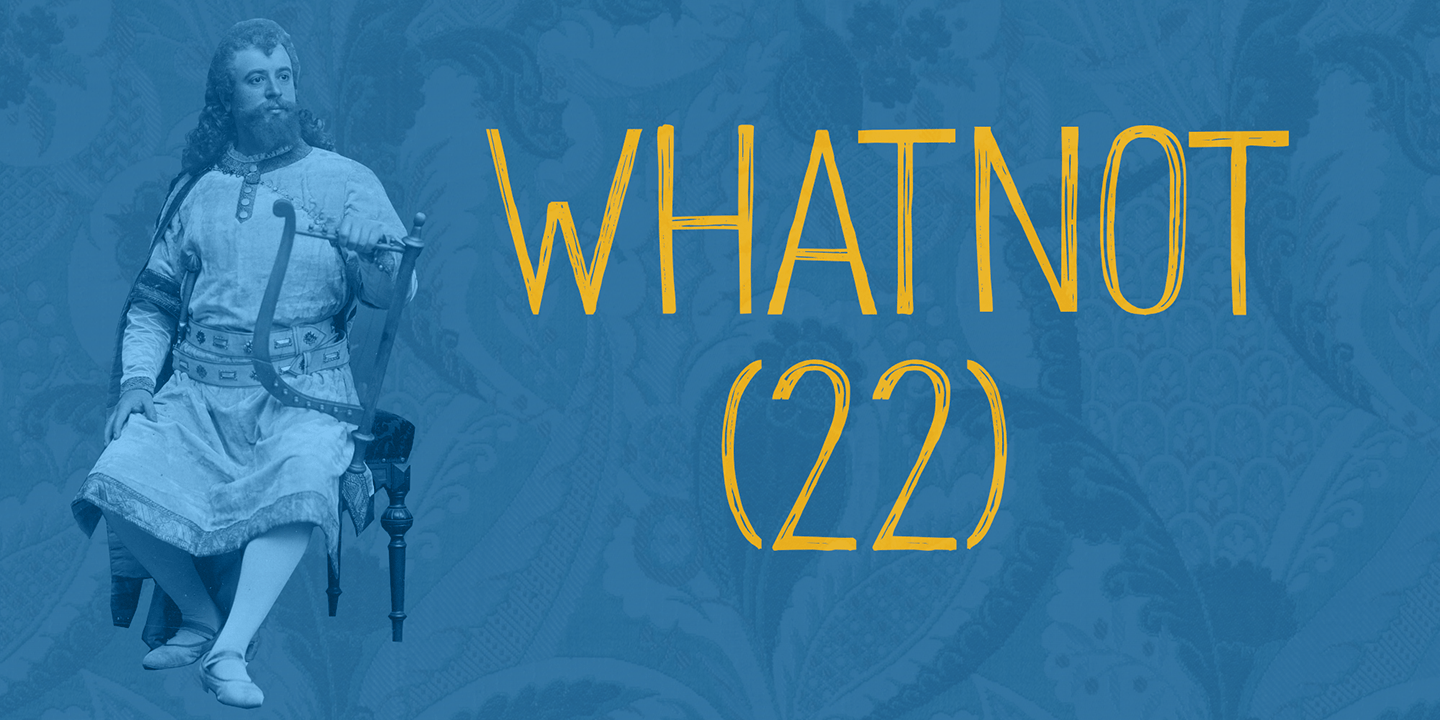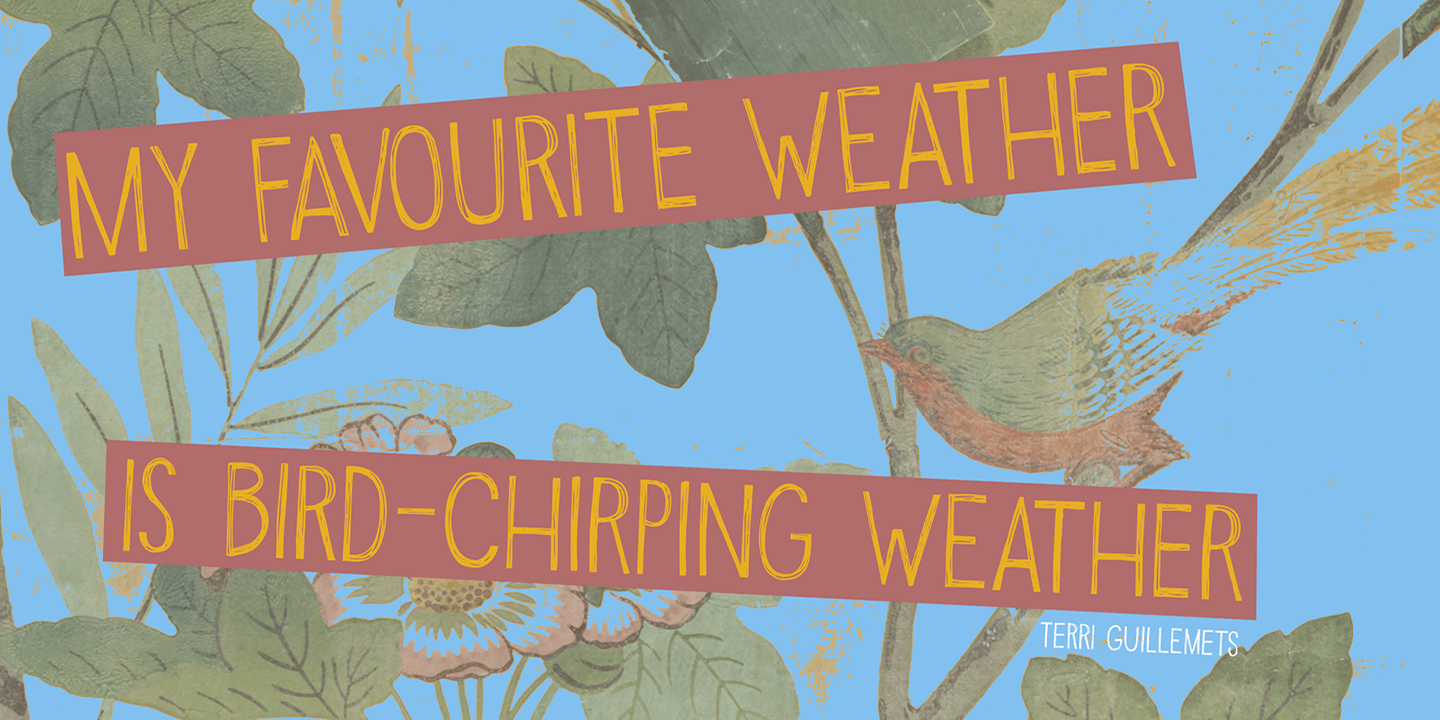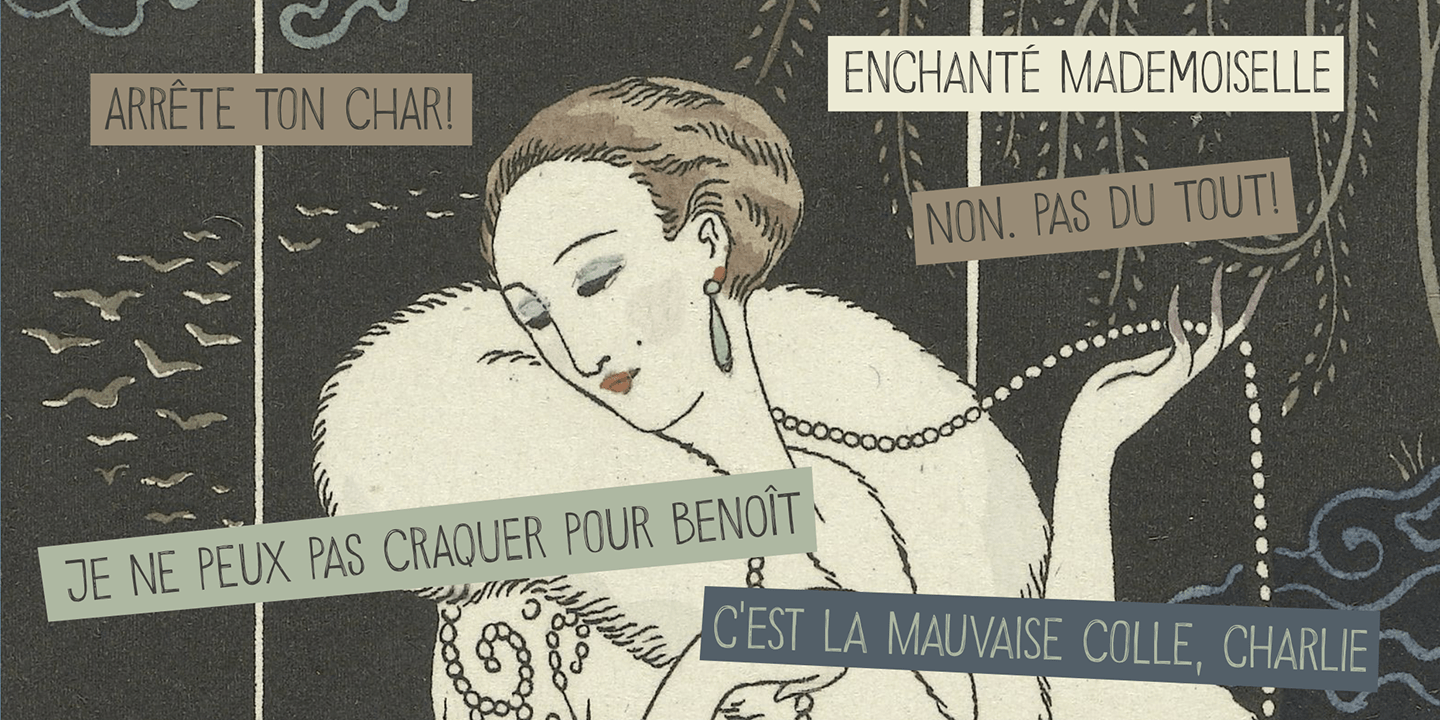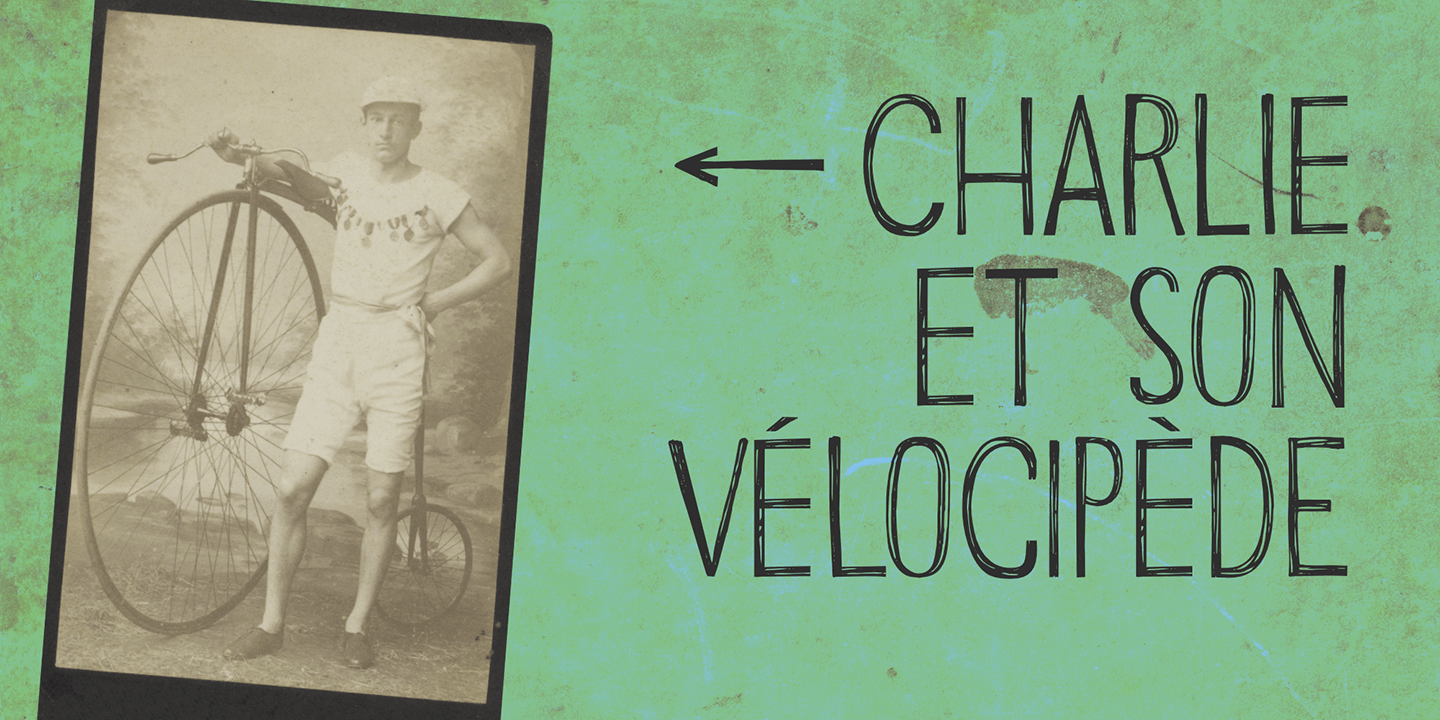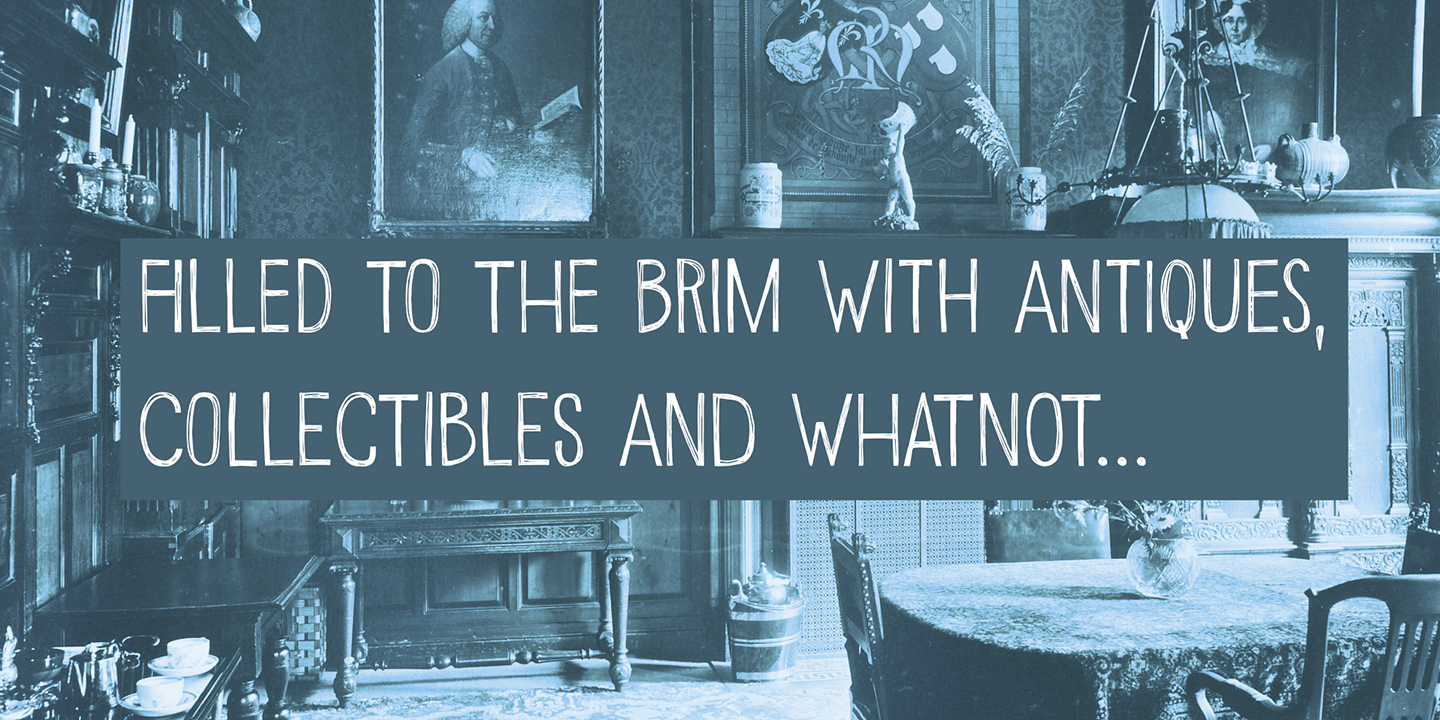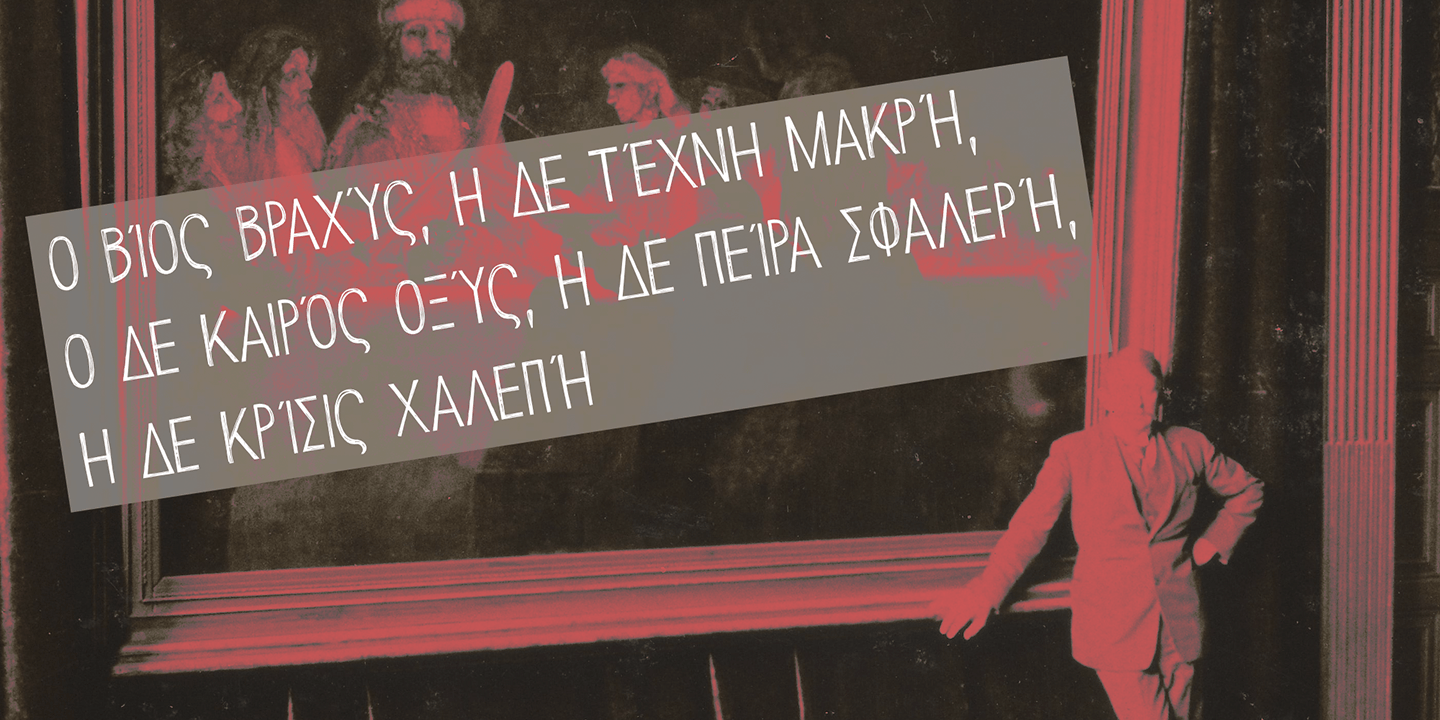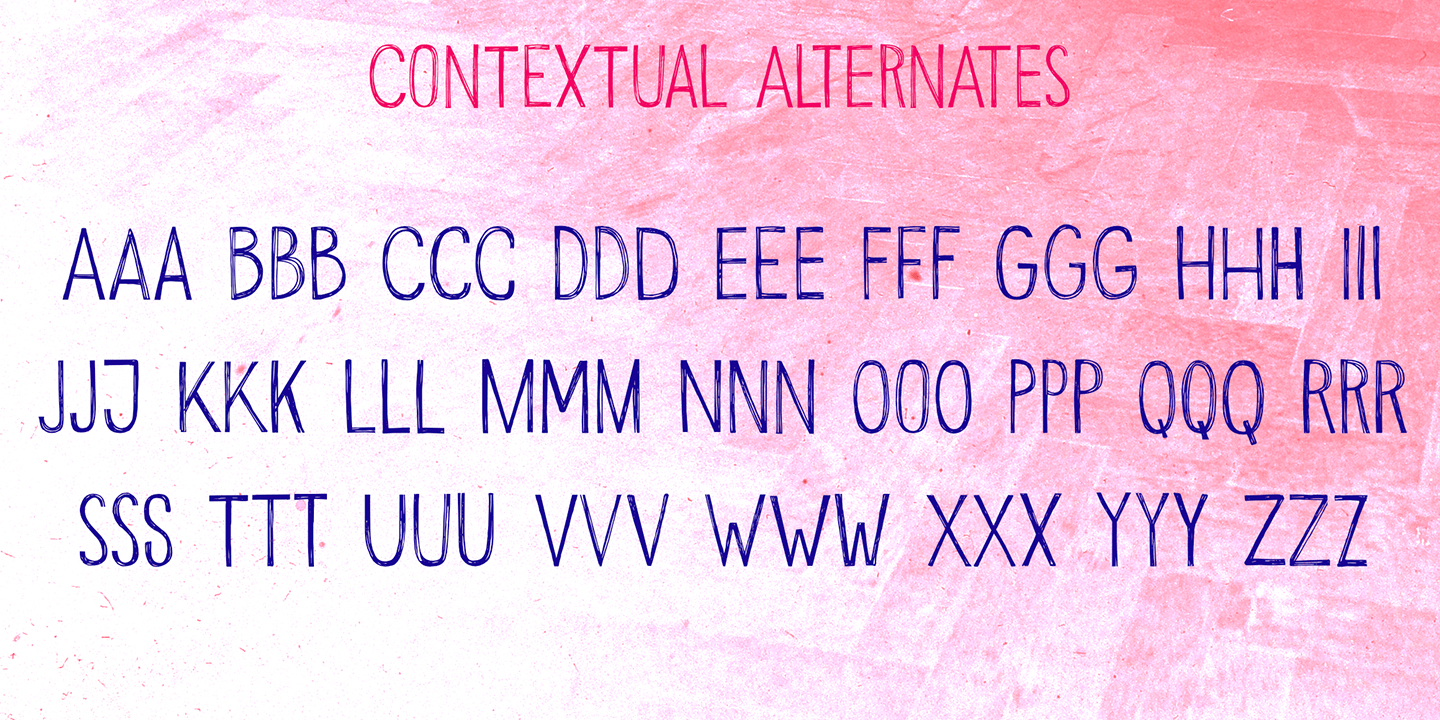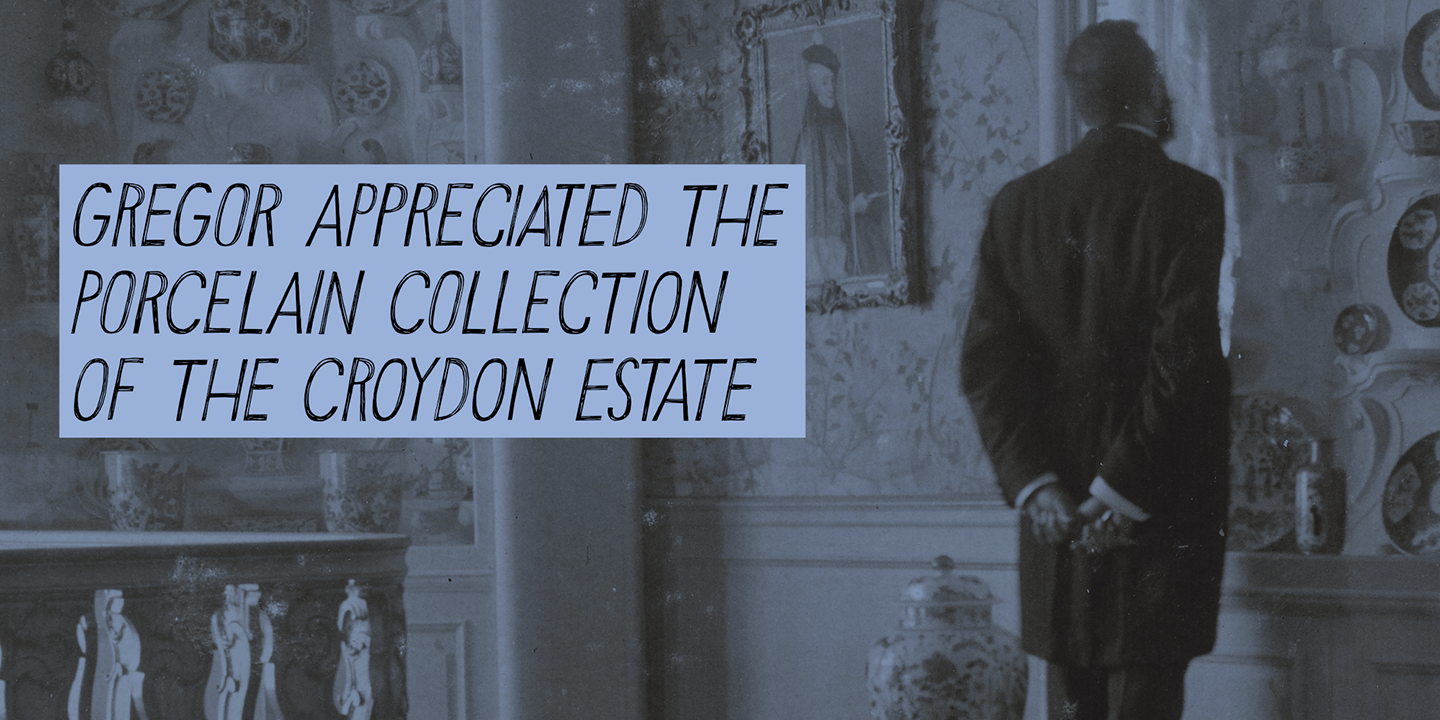
Whatnot 22
Font Family by Hanoded
In 2014 I made a font called Whatnot. I think I made with with a roller ball pen, but I am not sure, as it was a long timer ago. I have always liked Whatnot font and I think it deserves a second lease on life, so I made a new (and improved) version of it, called Whatnot 22. Not Catch 22...
It now comes with better kerning, multilingual support (including Vietnamese, Sami and Greek) and a cool set of contextual alternates that cycles as you type.